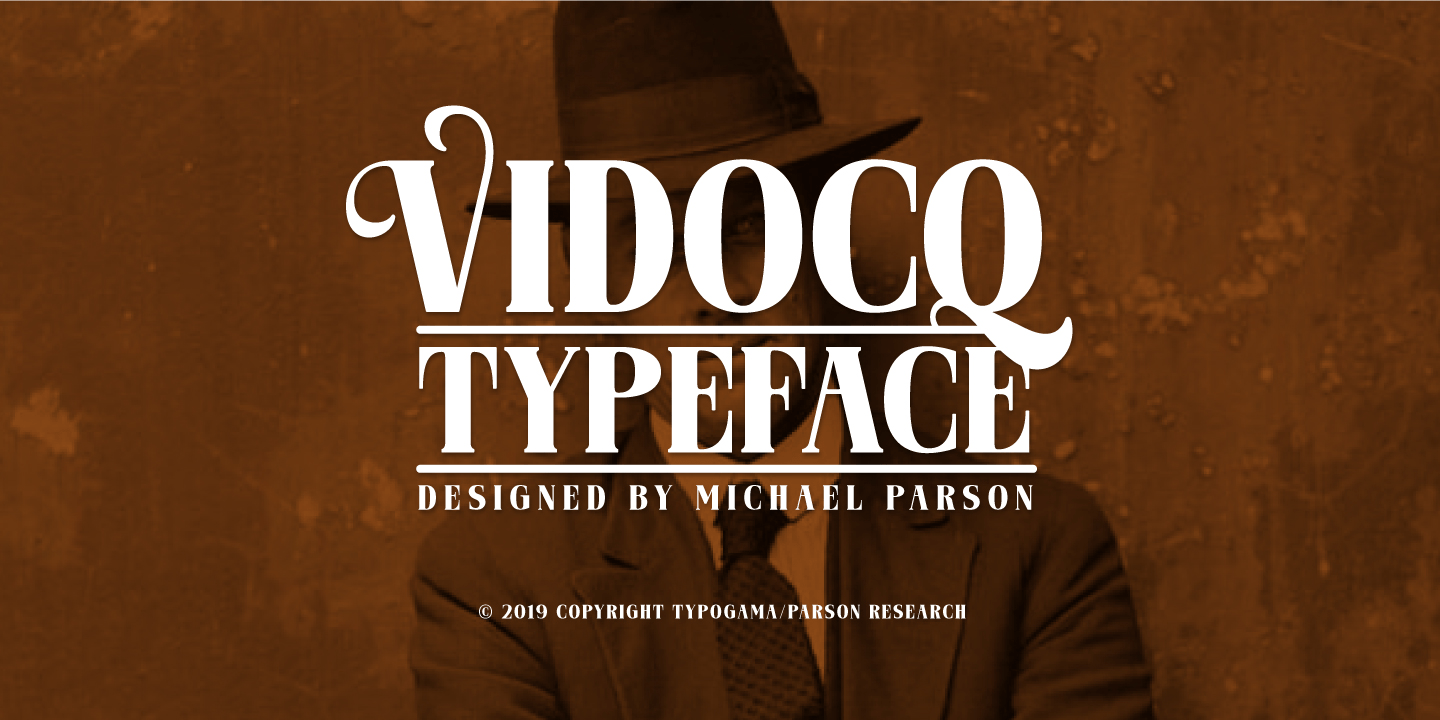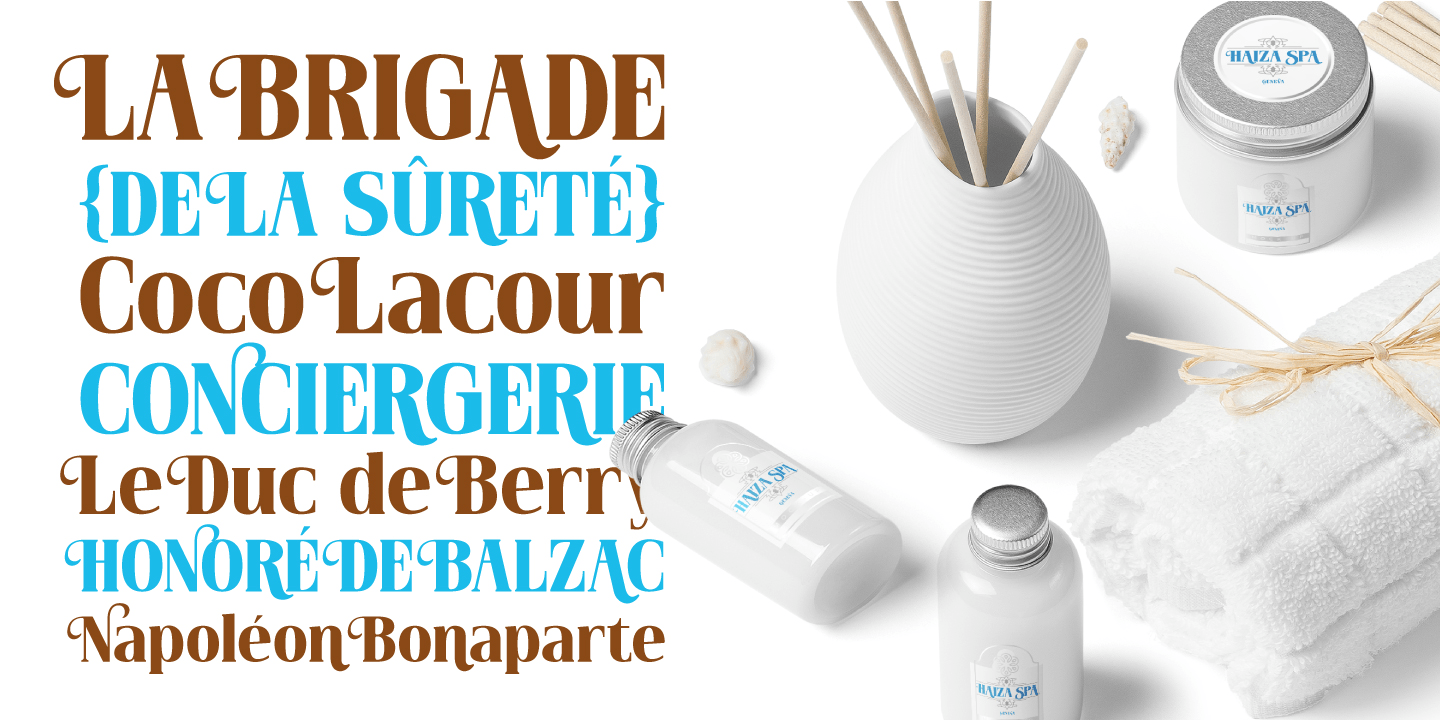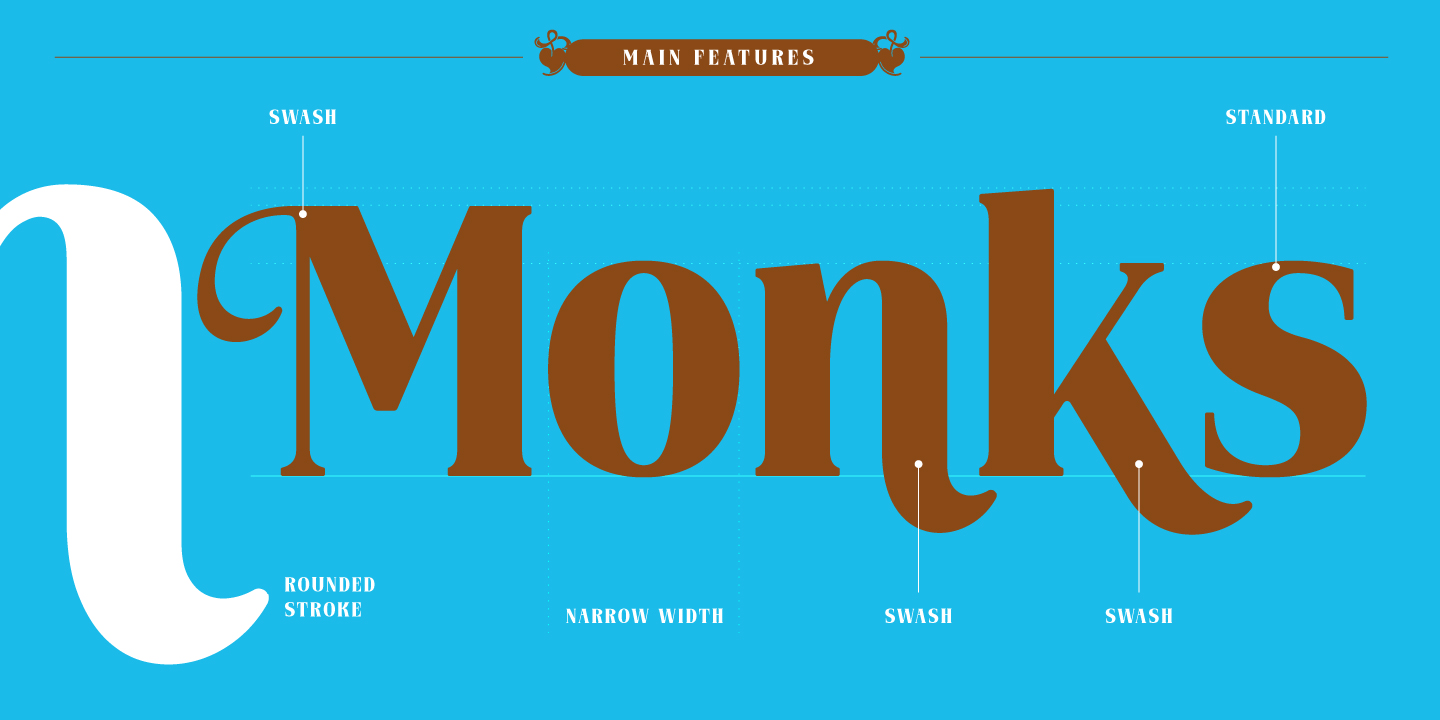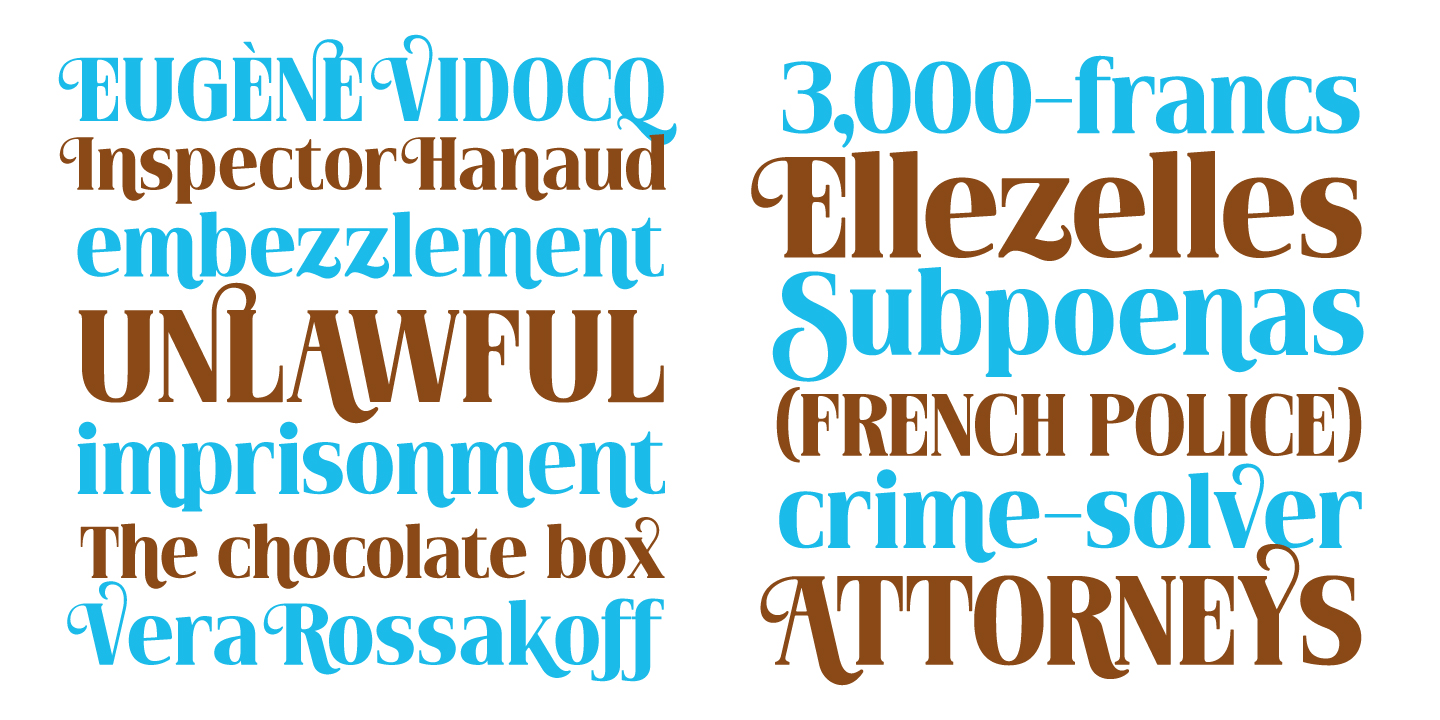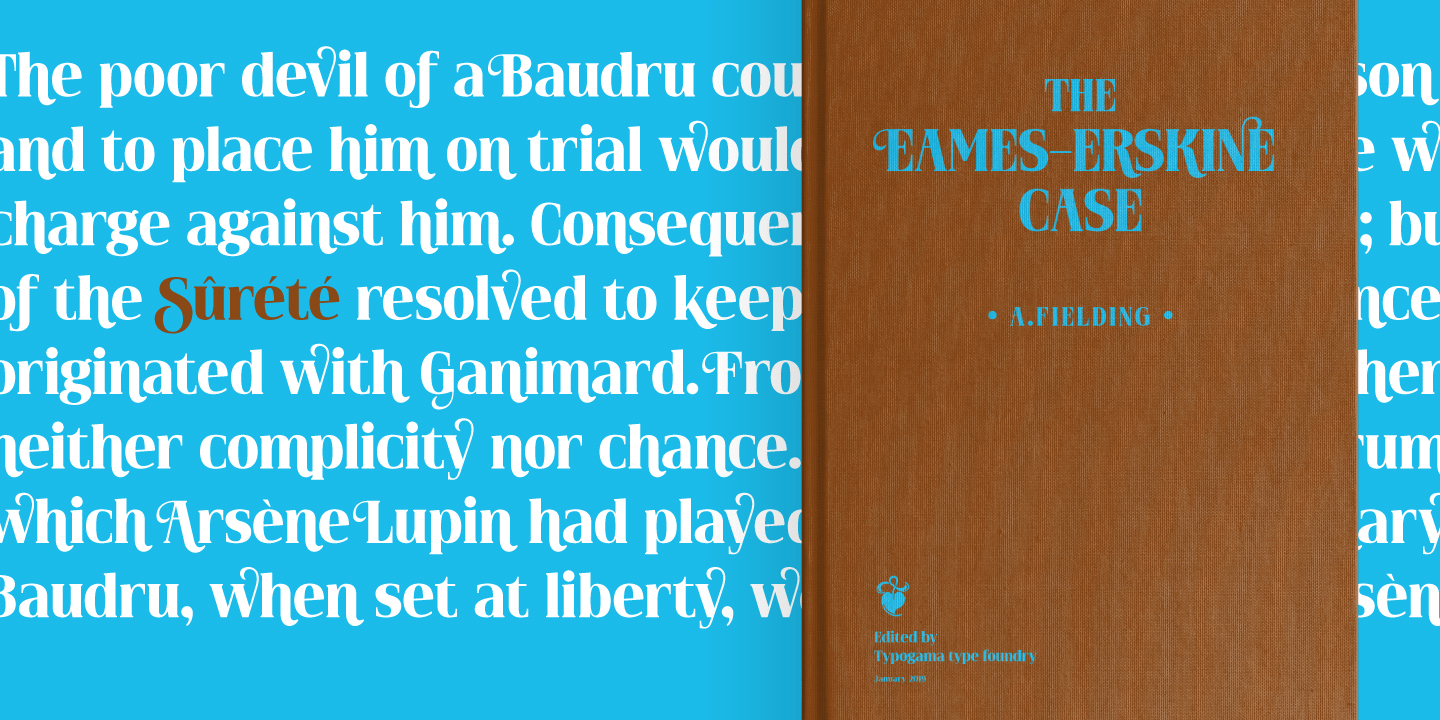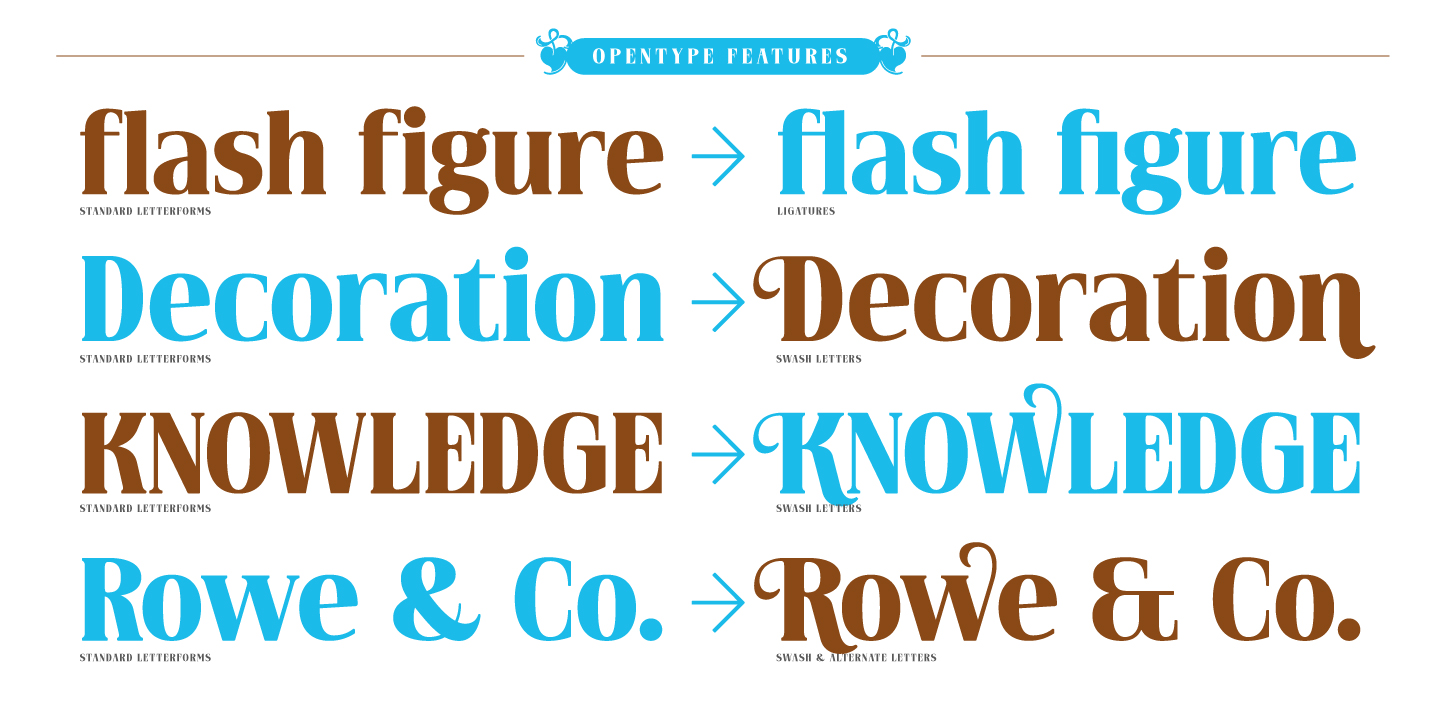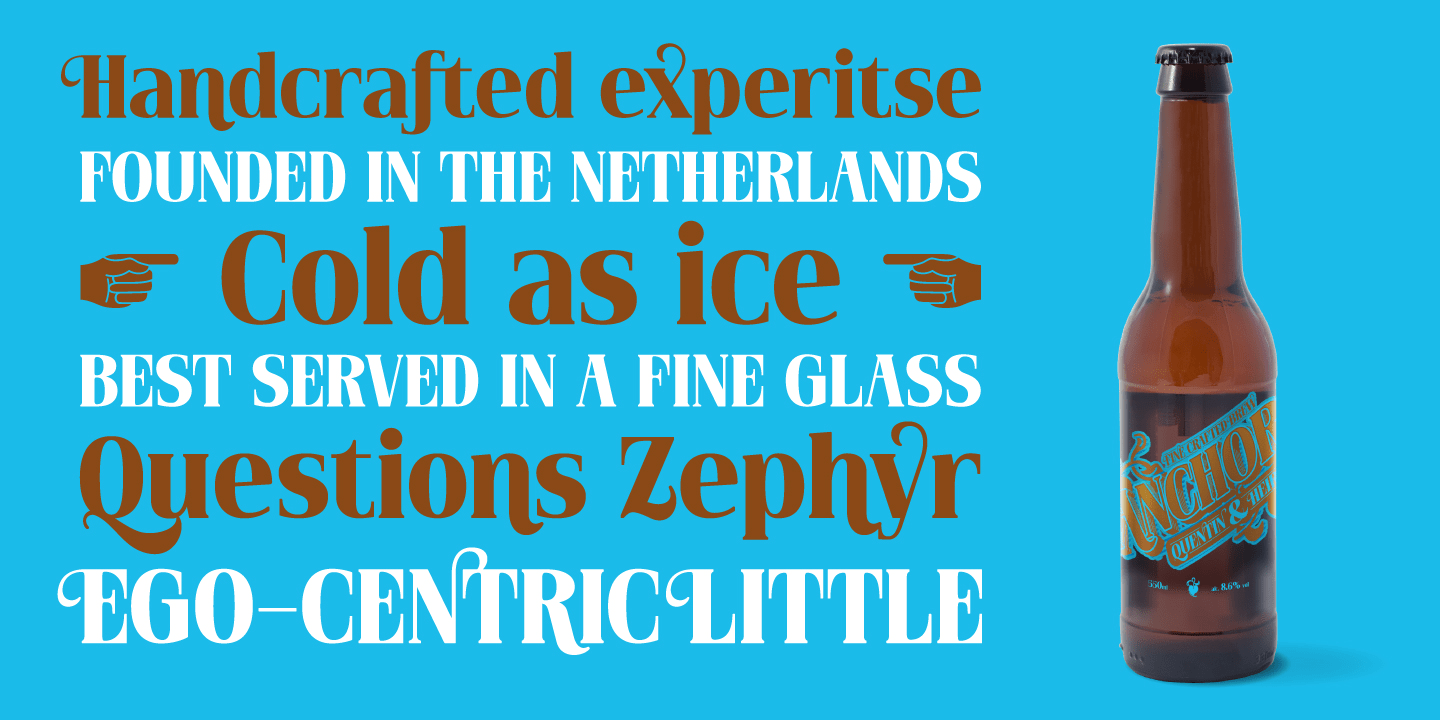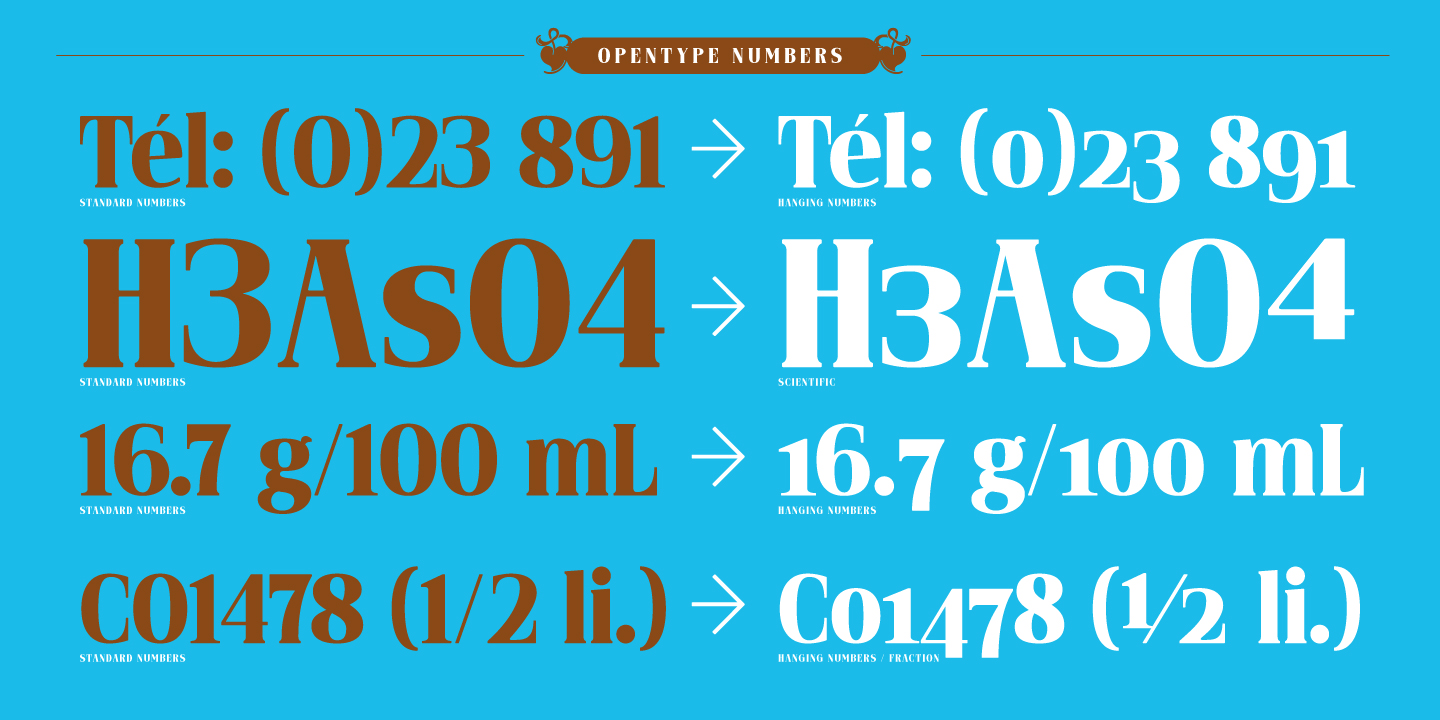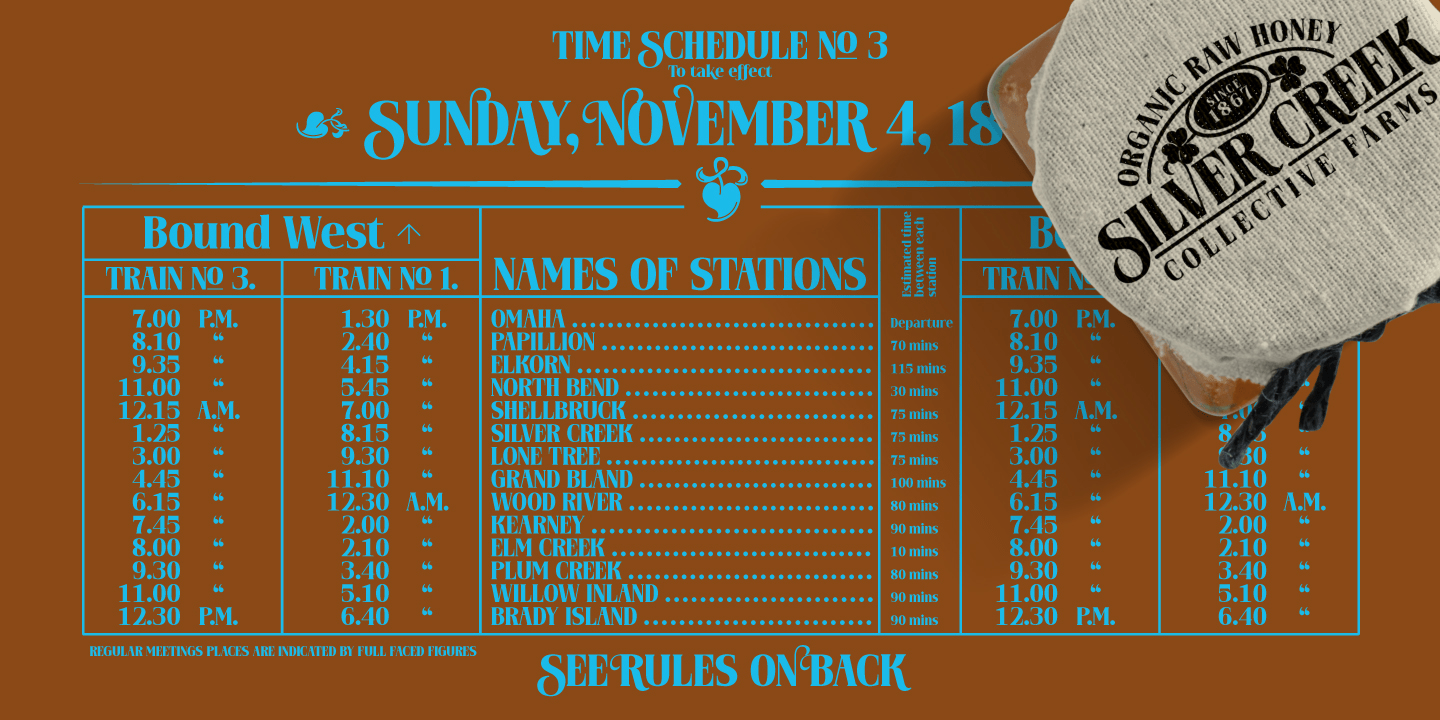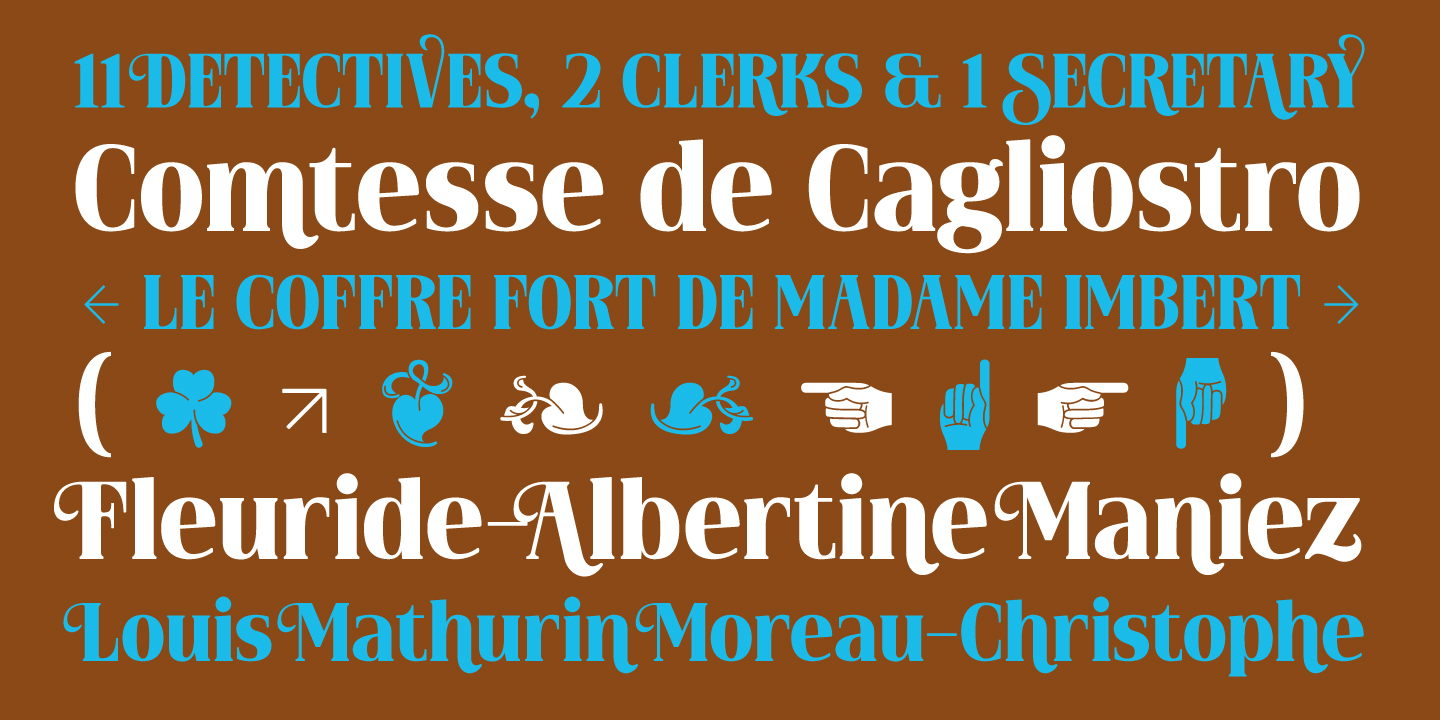
Vidocq
Font Family by Typogama
Vidocq is a single weight typeface designed for use in headlines and titles. It's rounded forms and dark stroke translate into a bold yet friendly appearance coupled with a narrow proportion that let's it set well in condensed settings. Thanks to an extended character set and wide range of Opentype features that includes arrows and fleurons, Vidocq was created to allow designers to play with various styles while composing layouts.